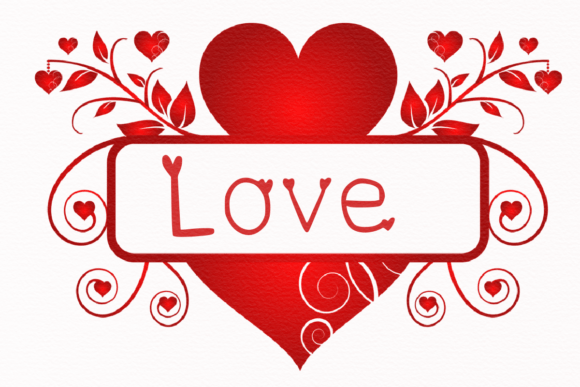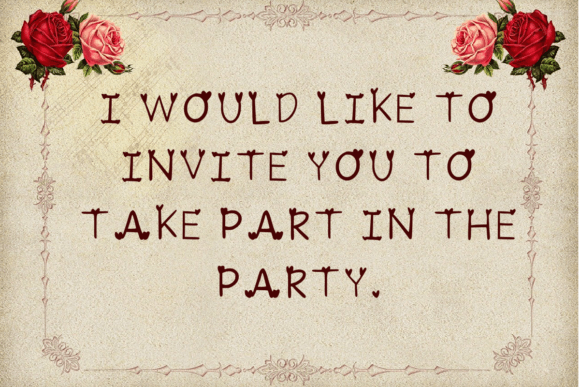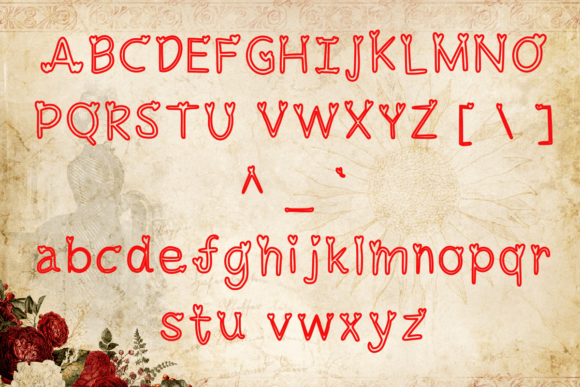
Heart Font
About Heart Font
“Heart” is not only a font; it’s a cute and lovely handwritten typeface that infuses each letter with a unique and adorable touch. This font has the remarkable ability to make your design come alive with its charming and distinctive characters.
The cuteness factor of Heart adds a playful and endearing quality to your text, making it suitable for a variety of applications. Whether you’re working on greeting cards, invitations, or any project that calls for a sweet and delightful aesthetic, Heart proves to be an excellent choice.
Each letter in this font carries its own adorable personality, contributing to the overall appeal of your design. The handwritten quality of Heart brings an authentic and personal touch, creating a connection with the audience. It’s perfect for projects where a touch of warmth and charm is desired.
The versatility of Heart shines through as it adapts seamlessly to different design contexts. Whether you’re using it for headlines, titles, or body text, this font ensures that every word is infused with a lovable and lively spirit, capturing the viewer’s attention.
The magic of Heart unfolds when applied to digital media as well. From social media graphics to online invitations, the font’s cuteness and uniqueness translate effectively in the digital realm, creating visually engaging and shareable content.
In essence, Heart is more than a font; it’s a design companion that breathes life and cuteness into your creative projects. Its lovely handwritten style makes it a standout choice for anyone looking to add a touch of warmth, adorability, and authenticity to their designs.